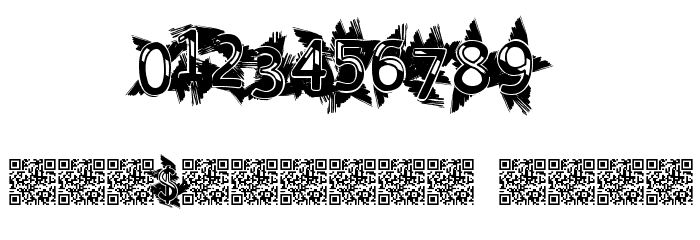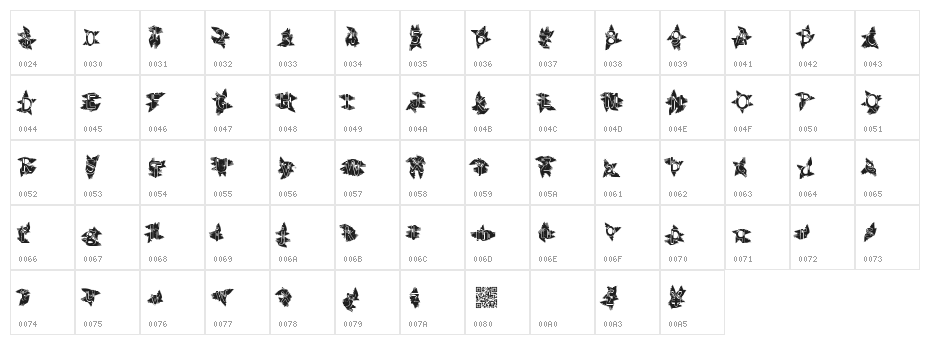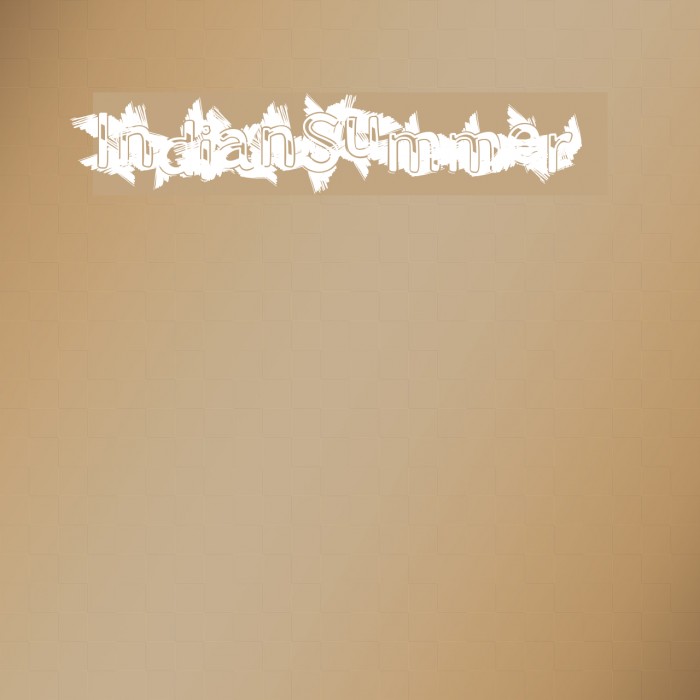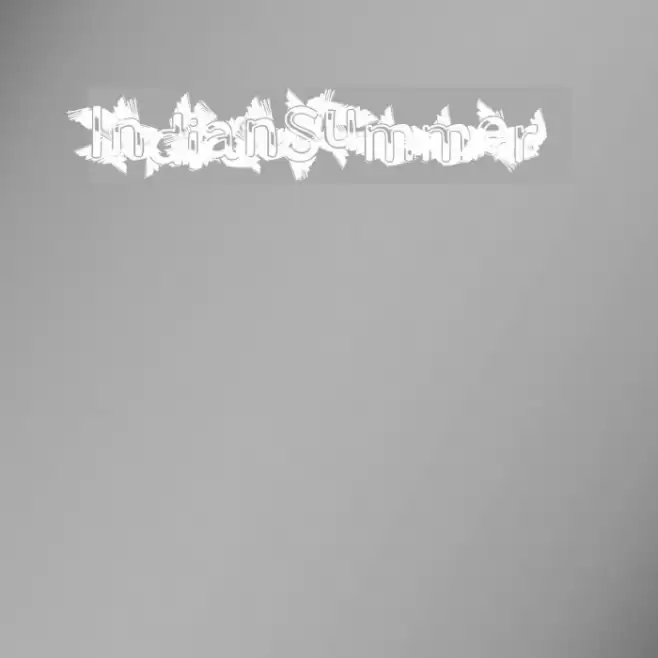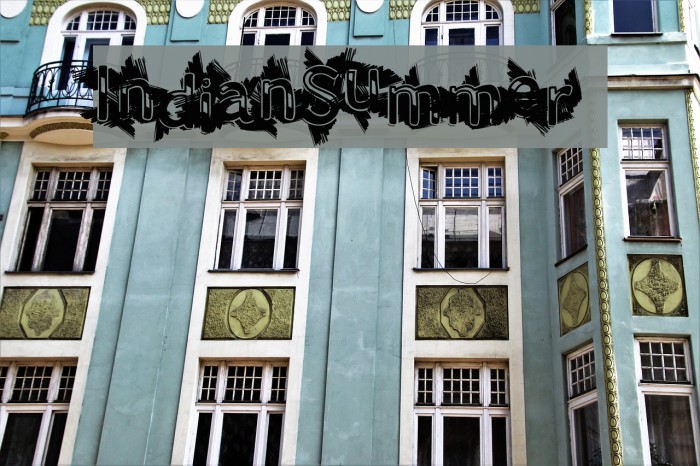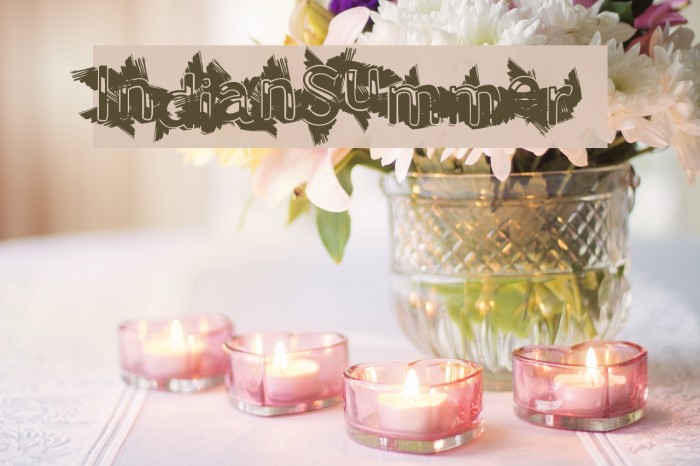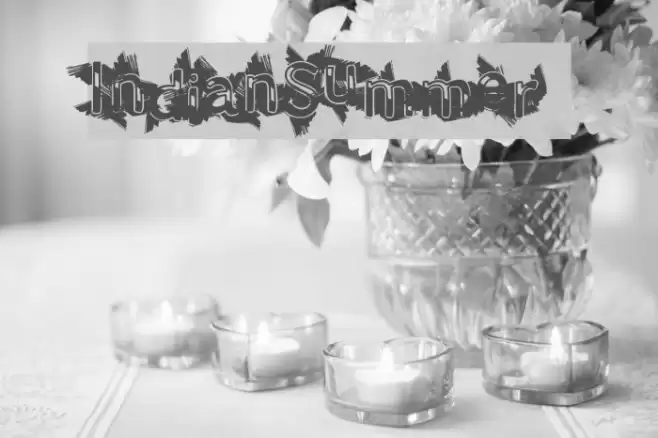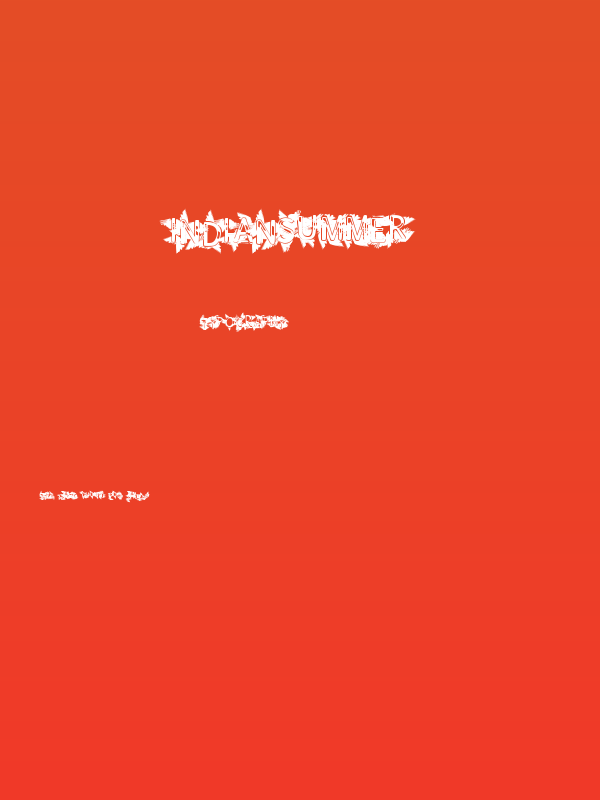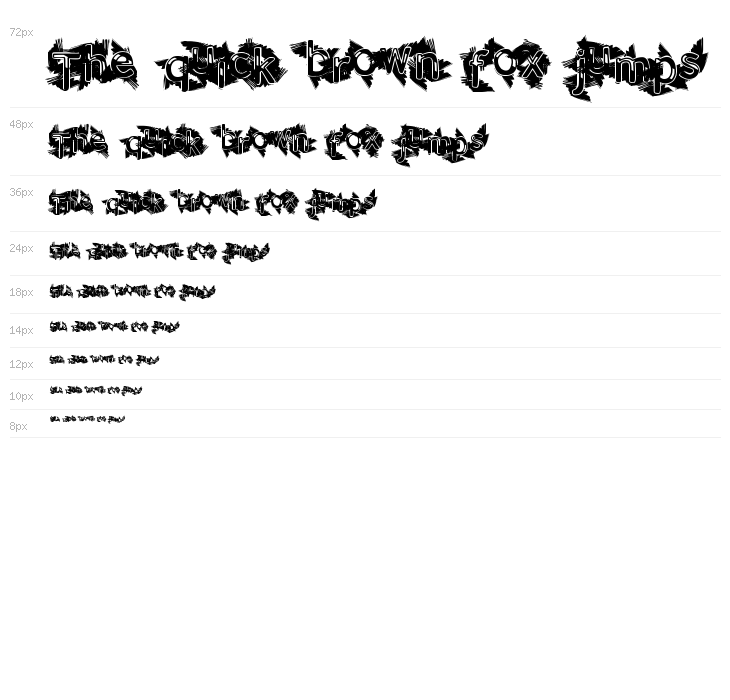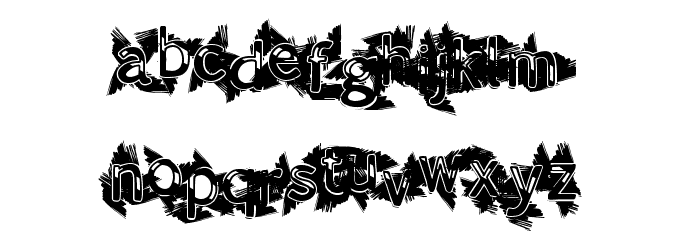
IndianSummer Font
IndianSummer Description
This font features a bold and dynamic design with jagged, irregular edges that give it a chaotic yet artistic appearance. The letters are heavily stylized, with a sense of movement and energy, resembling a burst of creativity. The uppercase and lowercase characters maintain a consistent style, with the uppercase being more pronounced. The numbers and special characters follow the same design ethos, ensuring uniformity across all elements. This font is highly decorative, making it ideal for eye-catching designs that require a strong visual impact.
Proposed ProjectsIdeal for album covers, posters, graffiti art, and any project needing a bold, artistic flair.